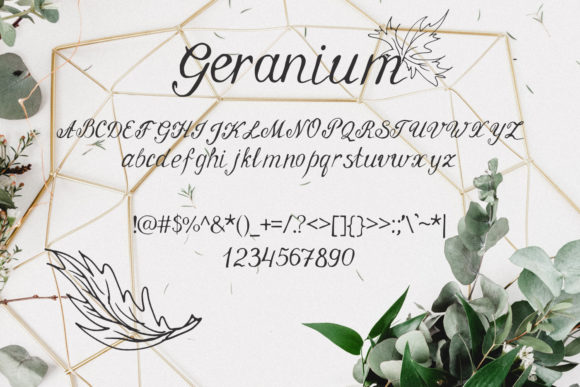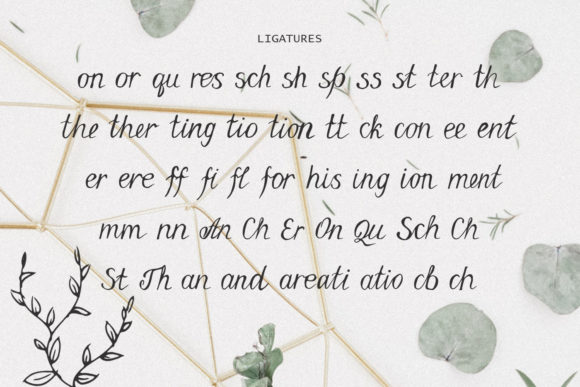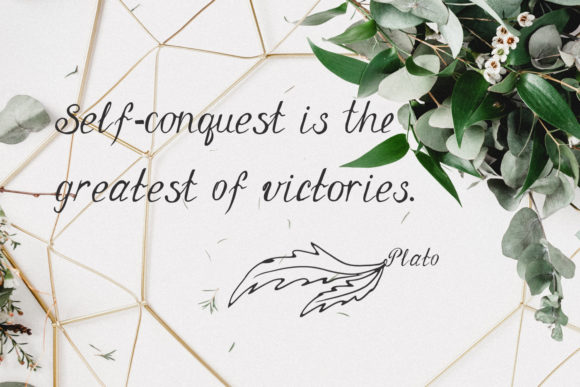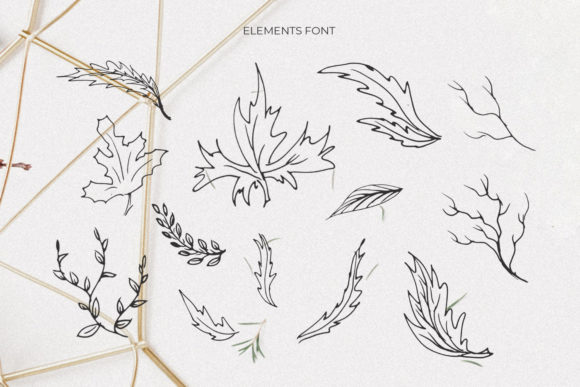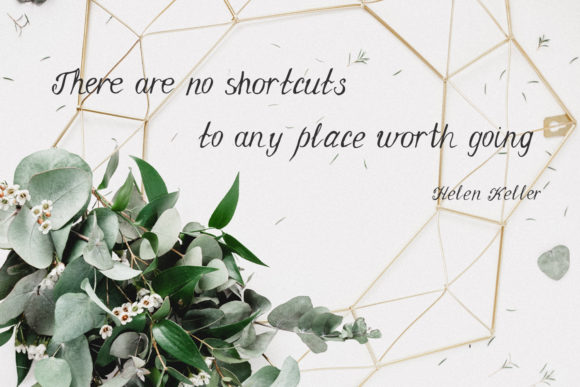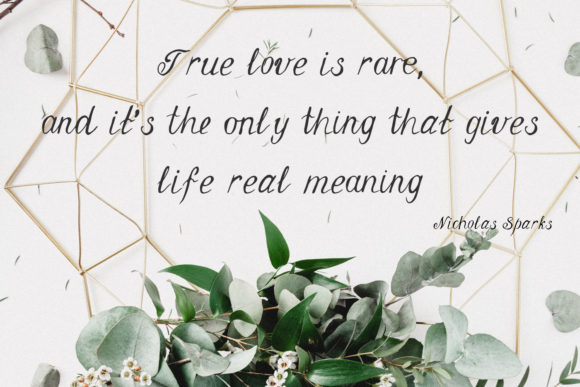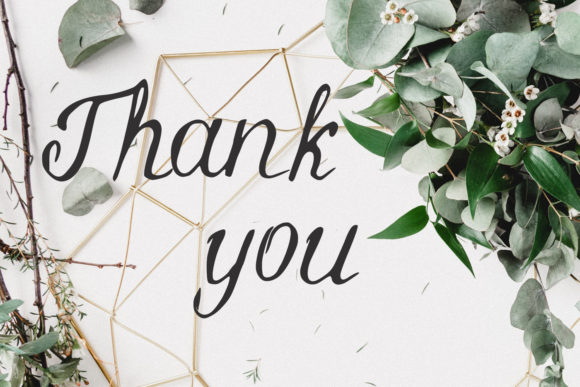
Geranium Font
About Geranium Font
The Geranium is an elegant, handwritten script with an unique and detailed look. It looks amazing in all caps with a wide-set spacing if you want to try a classy look, or beautiful on its own in capital and lowercase letters for something completely timeless.
Perfect for gorgeous headers, invitations, save the dates, weddings, titles, web layouts and branding, etc.